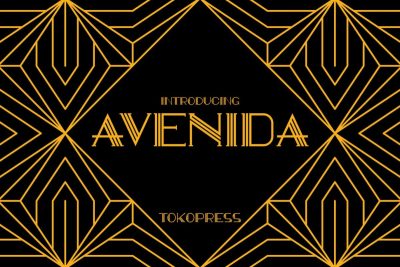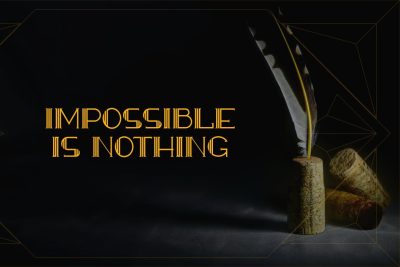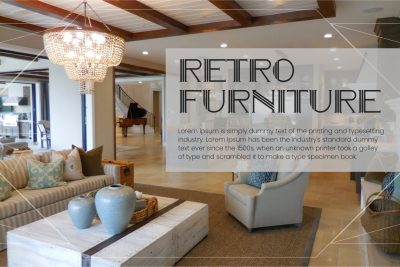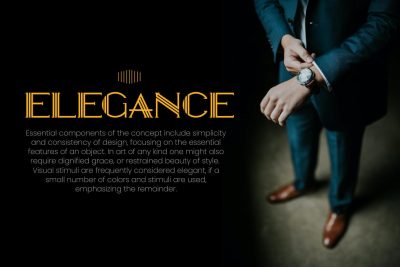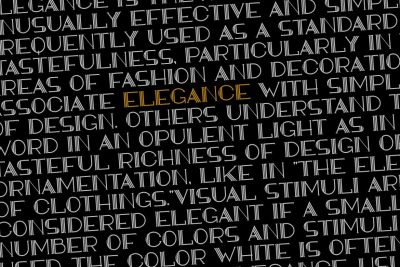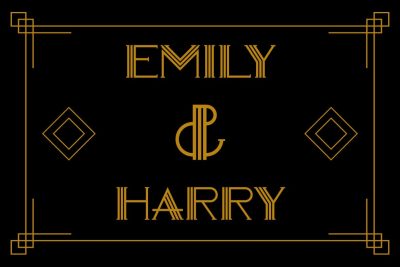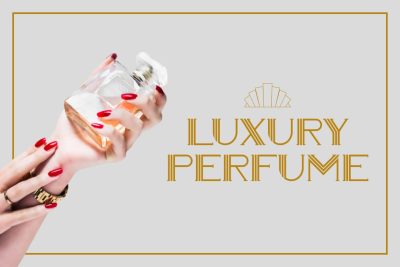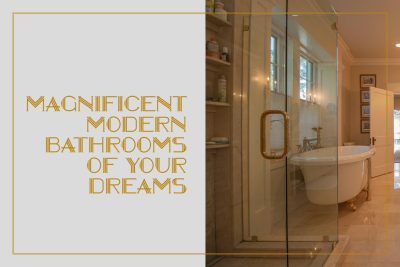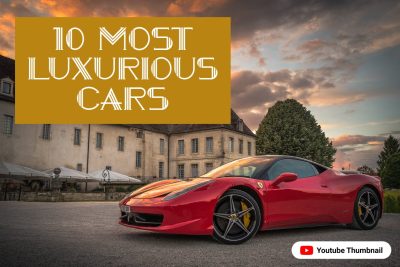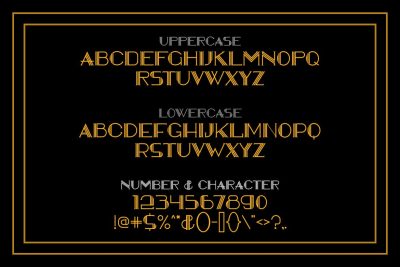
AVENIDA – Art Deco Font
Retro Font cis a bold typeface that combines vintage charm with a modern touch. Inspired by the fonts of the 70s and 80s, it brings a nostalgic flair to any design. The font features a mix of sharp lines and smooth curves, offering a balance of boldness and elegance. Its clean, geometric structure makes it highly versatile, perfect for both headlines and body text. This font is ideal for projects that want to evoke a sense of creativity and nostalgia while still feeling contemporary and fresh.
The design of Retro Font Avenida emphasizes legibility and style. The font has rounded edges that soften the appearance, while the sharp lines create a striking visual contrast. This combination allows Retro Font Avenida to stand out in a variety of applications. Whether it’s used in large headlines, advertisements, or smaller body text, it maintains clarity and impact. It works beautifully in both digital and print designs, making it a reliable choice for a wide range of creative endeavors.
This font is offers a perfect mix of retro vibes and modern aesthetics. It can be used for product packaging, branding, event posters, and social media graphics. Its unique style is sure to capture attention and leave a lasting impression. By blending classic design elements with a fresh look, Retro Font Avenida adds personality and boldness to any project.
Retro Font Avenida Ideal for Who?
Retro Font Avenida is perfect for designers and brands seeking a vintage-inspired, yet modern typeface. It suits industries like fashion, music, entertainment, and lifestyle. Whether you’re working on branding, marketing materials, or social media content, this font helps create designs that are both eye-catching and memorable. Its bold and fun personality appeals to audiences who love retro aesthetics but also crave a contemporary twist.
The font is especially great for younger audiences and brands that want to tap into retro culture. It works well for music promotions, event posters, album covers, and social media graphics. This font is also a great choice for tech startups, creative agencies, and fashion brands looking to craft a unique, nostalgic identity. It’s ideal for any project that requires a font with a strong visual presence, whether it’s for large-scale designs or smaller, more intimate pieces.
Taking an art deco look, AVENIDA is all about classic, elegance, and high-class feel all over it.